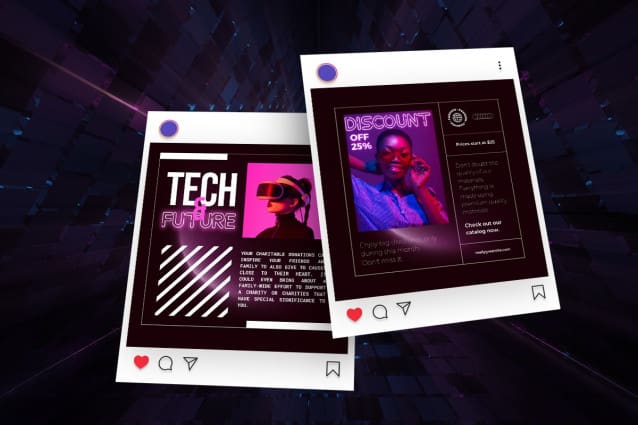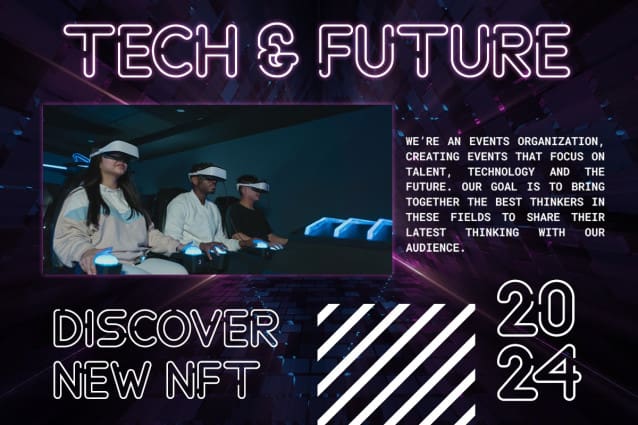
Discofest Futuristic Font
Discofest Futuristic Font was created to present a simple, unique, and modern impression to anyone who sees it. This is in line with the characteristics of a simple Discofest font without excessive decoration. People who read a variety of texts using this typeface do not have to try very hard to read and understand them. The font is legible font.
Dsicofest Futuristic Font is the best modern font and is suitable for projects using the themes of games, future technology, space travel, and visual reality. This font can be used as a digital font, such as on the web, video, and other displays, and as a printed font on posters, banners, and book covers. This type of font can be printed in small or large sizes and still looks good up close or from a distance.
Discofest Futuristic font is very appropriate when used at a music event. This font can use for posters, banners, stage decorations, and on-screen displays showing people. The modern and energetic impression from this font can build a pleasant atmosphere for the audience.